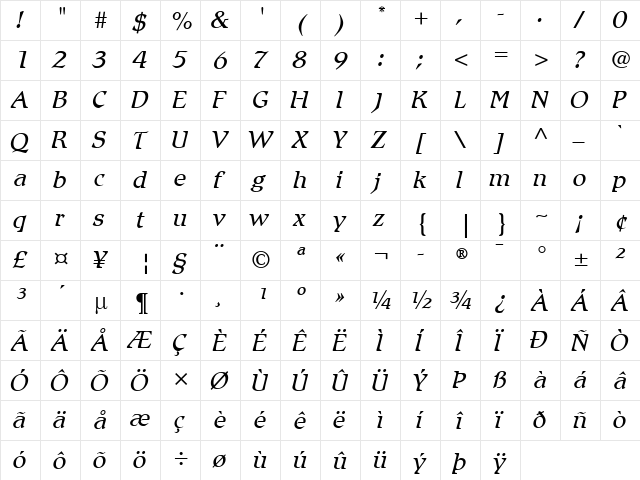
Romic LT Light Italic
Design Context for Romic LT Light Typeface
Romic LT Light is a composed and adaptable typeface that performs quietly and consistently across a wide range of design contexts. The dynamic lean of this cut emphasises speed and emphasis in any layout. Its slender proportions lend an understated elegance to any composition.
Pro Tip: Try Romic LT Light for annotation and caption copy alongside an upright companion — the contrast in angle creates a dynamic but ordered typographic system.